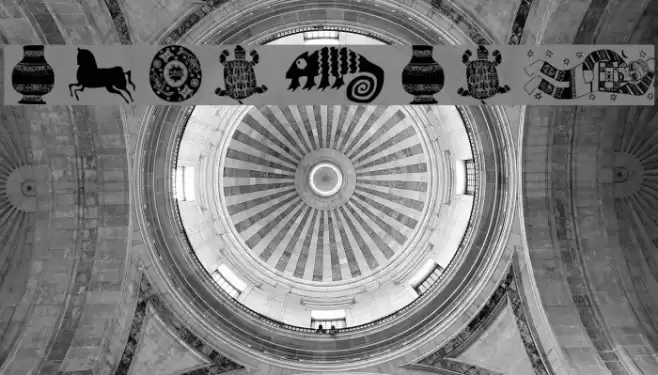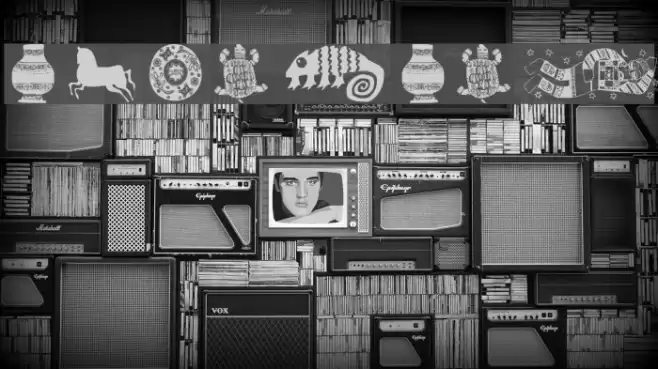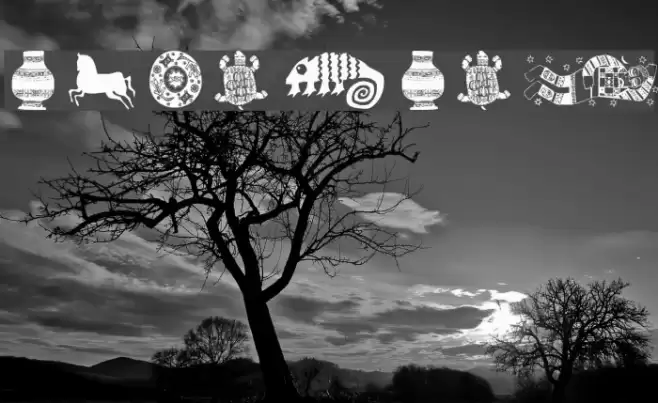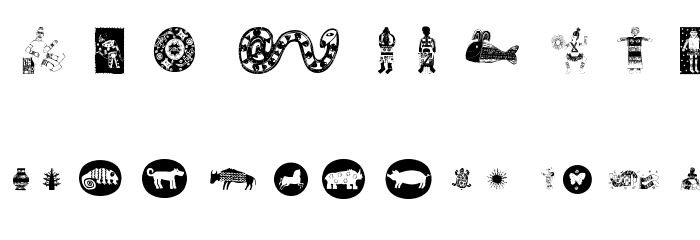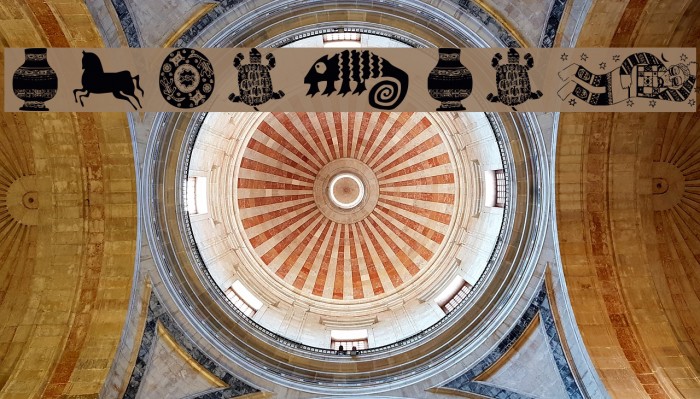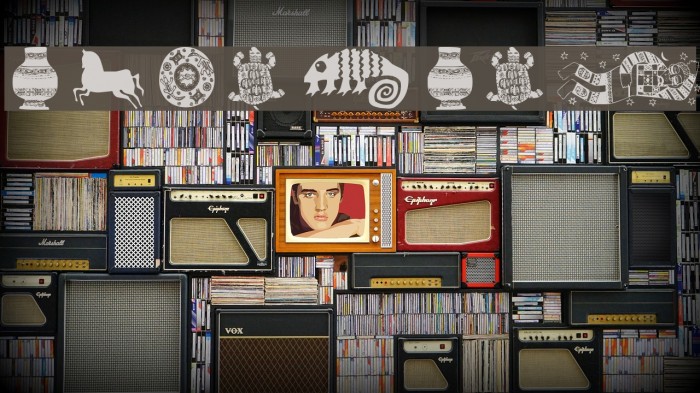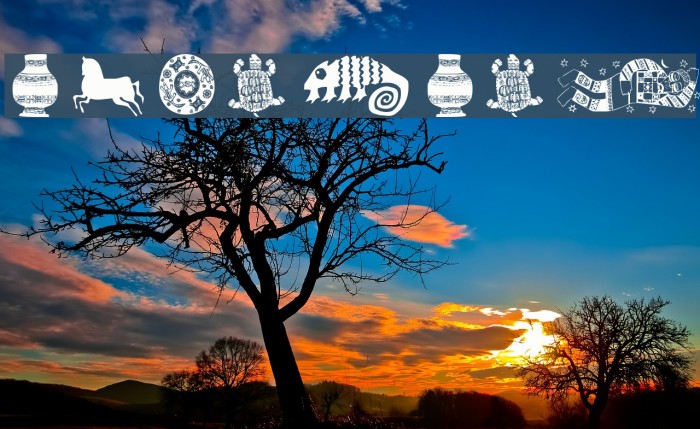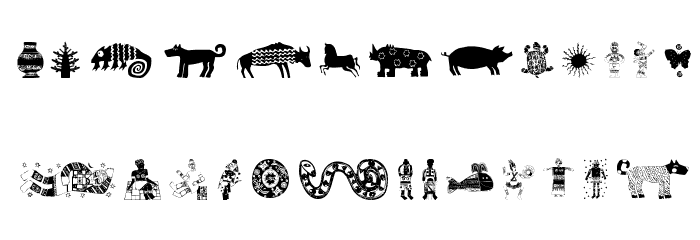
Africain Font
Africain Description
This is a decorative font featuring a collection of African-inspired symbols and illustrations. Each character is represented by a unique design, including animals, cultural motifs, and traditional patterns. The designs are bold and intricate, capturing the essence of African art with a playful and artistic flair. The font is not suitable for standard text but serves as a creative tool for adding cultural and thematic elements to projects. The characters are evenly spaced, and the designs are consistent in style, offering a cohesive visual experience.
A decorative font with African-inspired symbols and illustrations from Dingbats fonts.
- Proposed Projects: Ideal for cultural projects, educational materials, themed invitations, and artistic designs.
- Use Case: Logos, Artistic designs, Cultural projects